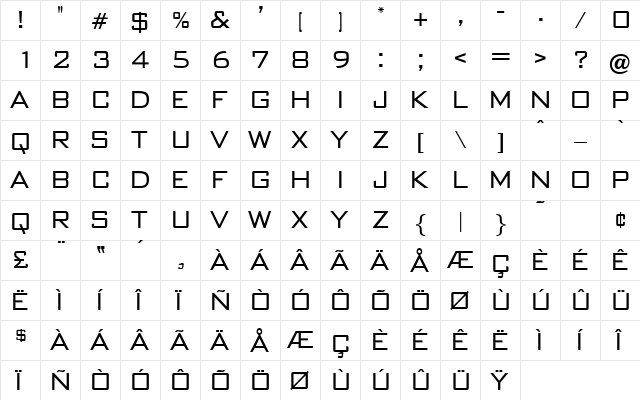
Banque Regular Font Preview
Banque Regular
Design Context for Banque Typeface
Banque is a composed and adaptable typeface that performs quietly and consistently across a wide range of design contexts.